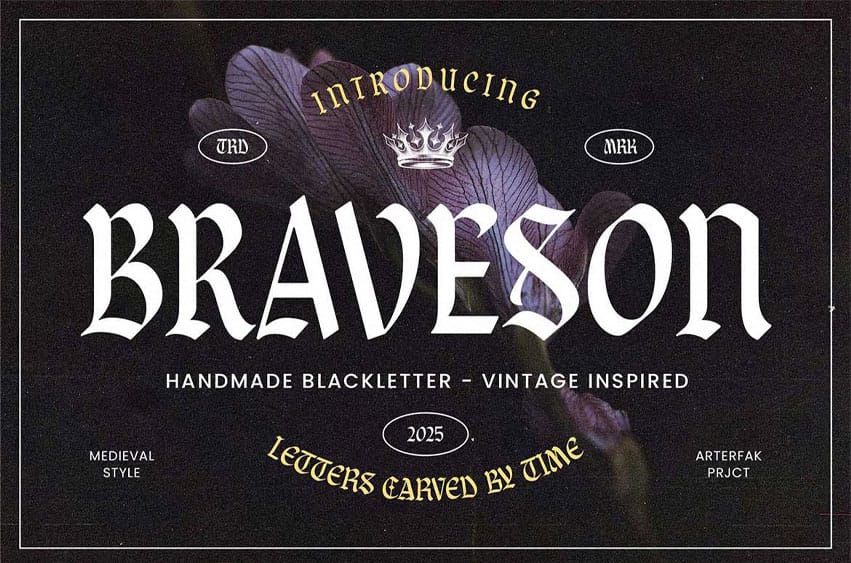
Braveson Font is an all-caps blackletter font inspired by vintage aesthetics and gothic style. Crafted by blending various blackletter traditions with reduced ornamental details, Braveson is designed to make your work stand out with bold impact.
Braveson comes with multilingual support and stylistic alternates, giving you the flexibility to fine-tune your typography and create designs that truly speak.
Fonts featured :
- All-capital character set
- Symbols & punctuation
- Stylistic alternates